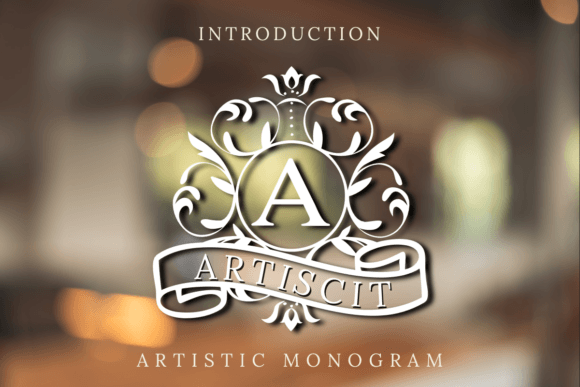
Unlocking Creativity with Artistic Monogram Font
In the realm of typography, artistic monogram fonts hold a special place for their elegance, versatility, and personal touch. Among these, the Artistic Monogram font stands out as a decorative typeface that not only adds a flourish to your handwritten notes but also elevates your digital and print designs. This comprehensive guide explores the Artistic Monogram font, its uses, and how it can transform your creative projects.
What is Artistic Monogram Font?
The Artistic Monogram font is a decorative typeface designed to infuse a personal and artistic touch into your writings and designs. It is characterized by its intricate and stylish lettering, making it perfect for projects that demand a bit of elegance and flair. Whether it’s for personal use, such as diary entries and greeting cards, or professional applications like banners and stationery, this font is versatile enough to meet various creative needs.
Uses of Artistic Monogram Font
Personal Projects
- Diary and Journaling: Add a personal touch to your diary entries with the Artistic Monogram font. It’s an excellent way to make your journaling practice more engaging and reflective.
- Greeting Cards: Create personalized and visually appealing greeting cards for special occasions. The font’s decorative nature ensures your cards stand out.
Professional and Creative Projects
- Banners and Posters: Use the Artistic Monogram font to create eye-catching banners and posters. Its decorative style can help draw attention and convey the message effectively.
- Merchandise: Design unique and stylish merchandise such as mugs, t-shirts, and cards. The font’s artistic appeal can add value to your products.
- Stationery and Social Media: Enhance your stationery, including notebooks, letters, and social media posts with this elegant font. It can help maintain consistency in your brand’s visual identity across different platforms.
Benefits of Using Artistic Monogram Font
Elegance and Sophistication
The Artistic Monogram font brings an air of elegance and sophistication to any project. Its decorative elements can transform simple texts into visually appealing content.
Versatility
This font’s versatility is one of its key benefits. It can be used across various mediums, from digital platforms like social media and blogs to print materials such as brochures and posters.
Personalization
The Artistic Monogram font allows for a high level of personalization. You can use it to create custom monograms, personalized gifts, and unique content that reflects your or your brand’s identity.
Tips for Using Artistic Monogram Font Effectively
Combine with Other Fonts
For maximum impact, consider combining the Artistic Monogram font with other fonts. A common approach is to pair it with a simpler font for body text to create contrast and ensure readability.
Adjust Size and Color
Experiment with different sizes and colors to make the most of the Artistic Monogram font. Larger sizes can be used for headings, while smaller sizes can be used for body text or captions.
Consider the Context
Always consider the context in which the font will be used. For example, a playful and colorful approach might work well for a children’s product, while a more subdued palette might be better suited for a professional brand.
The Artistic Monogram font is a powerful tool for anyone looking to add a touch of elegance and creativity to their projects. Whether you’re a writer, designer, or simply someone who appreciates beautiful typography, this decorative font can help you achieve your goals. With its versatility, elegance, and potential for personalization, the Artistic Monogram font is sure to become a favorite in your creative toolkit.